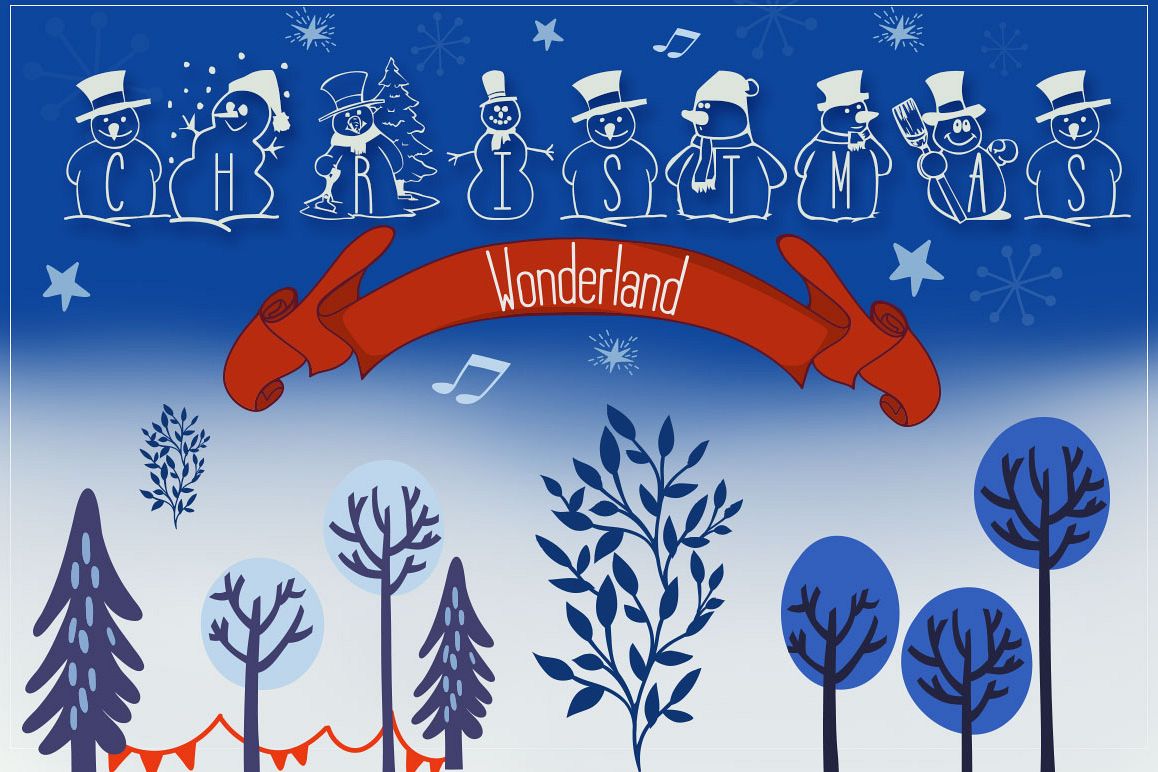
Christmas Wonderland - Christmas Font & Bonus
Another beautiful font for you to use this Christmas!
In the download file you get two fonts: Christmas Wonderland & Bonus: Lily Bloom Font. Christmas Wonderland comes with uppercase A-Z letters, 0-9 numbers & limited punctuation.